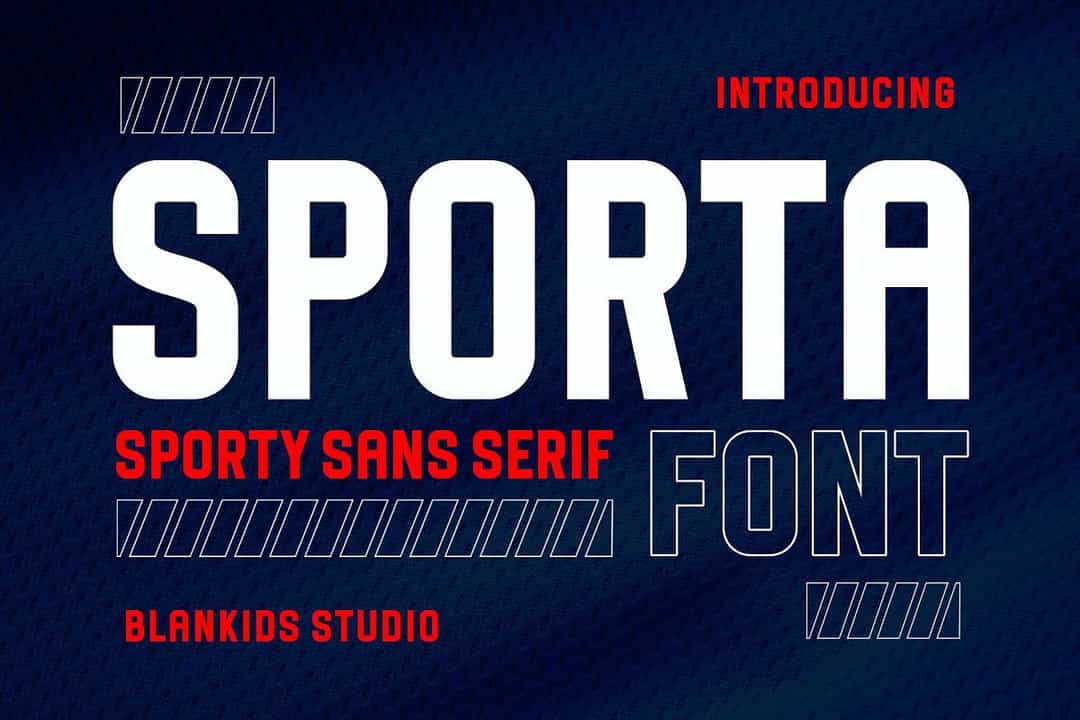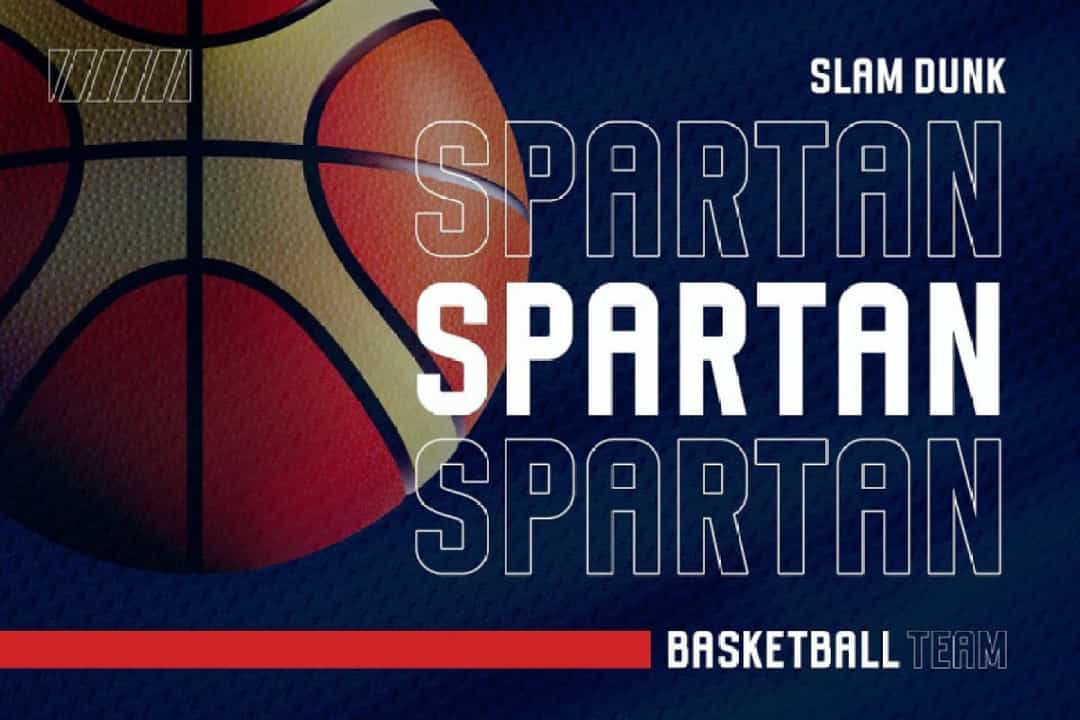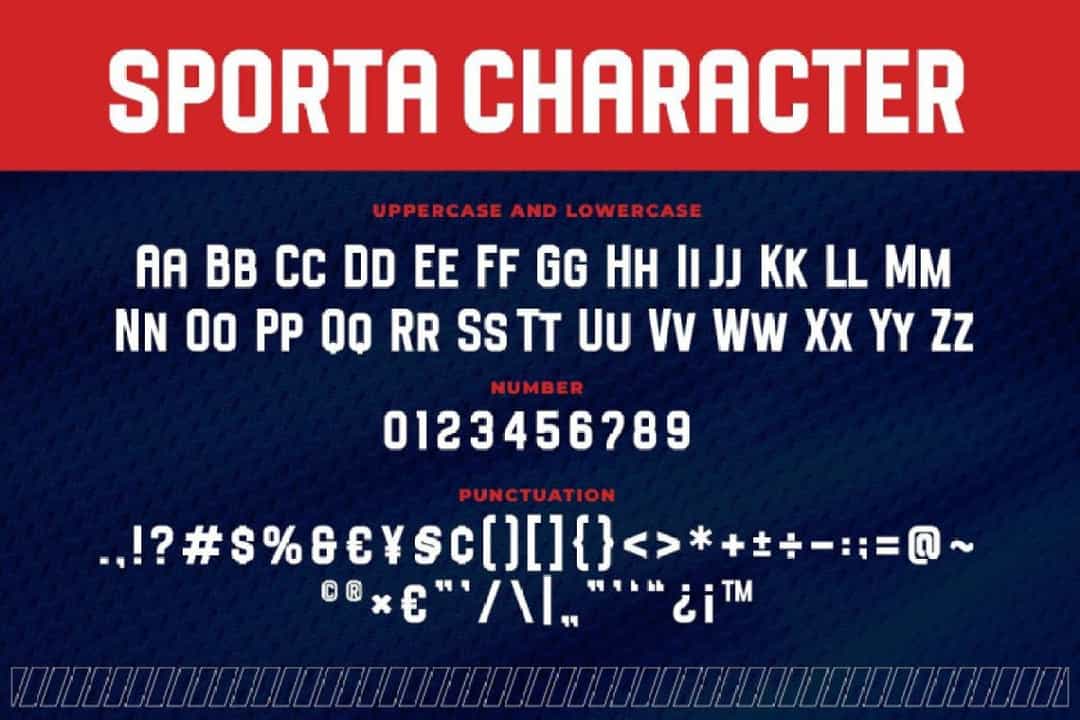
Sporta is an eye-catching Sans Serif Font inspired by modern typography, perfect for designs that make them more eye-catching and appealing. Crafted with great aesthetics in mind, Sporta makes this font suitable for book covers, posters packaging as well as logotypes merchandises and more.